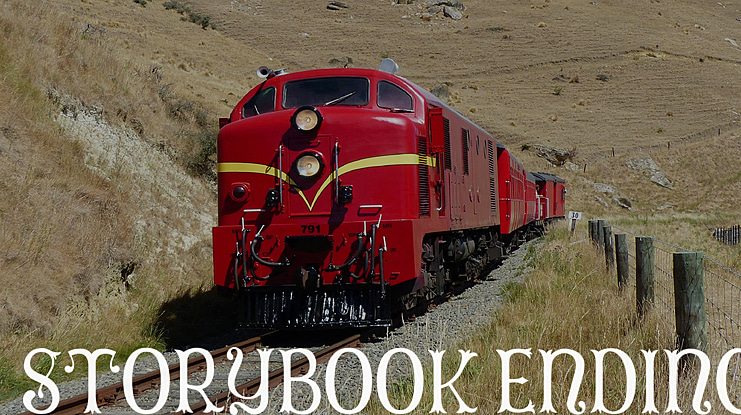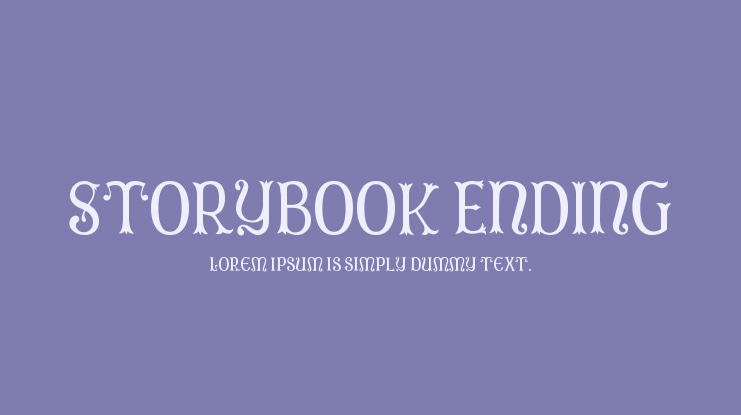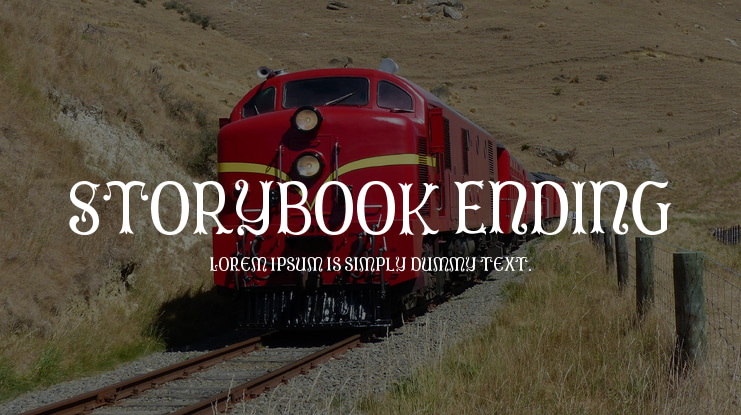
Storybook Ending Font
Let your imagination run wild! Storybook Ending is an all caps display font that looks like something straight out of a childs fairy tale. Uppercase letters appear thorny in appearance while the lowercase is more curvy and wispy. This font was inspired after Victorian lettering found in childrens books along with vintage advertisements in publications. Use it for a childrens book, logo, or toy packaging.